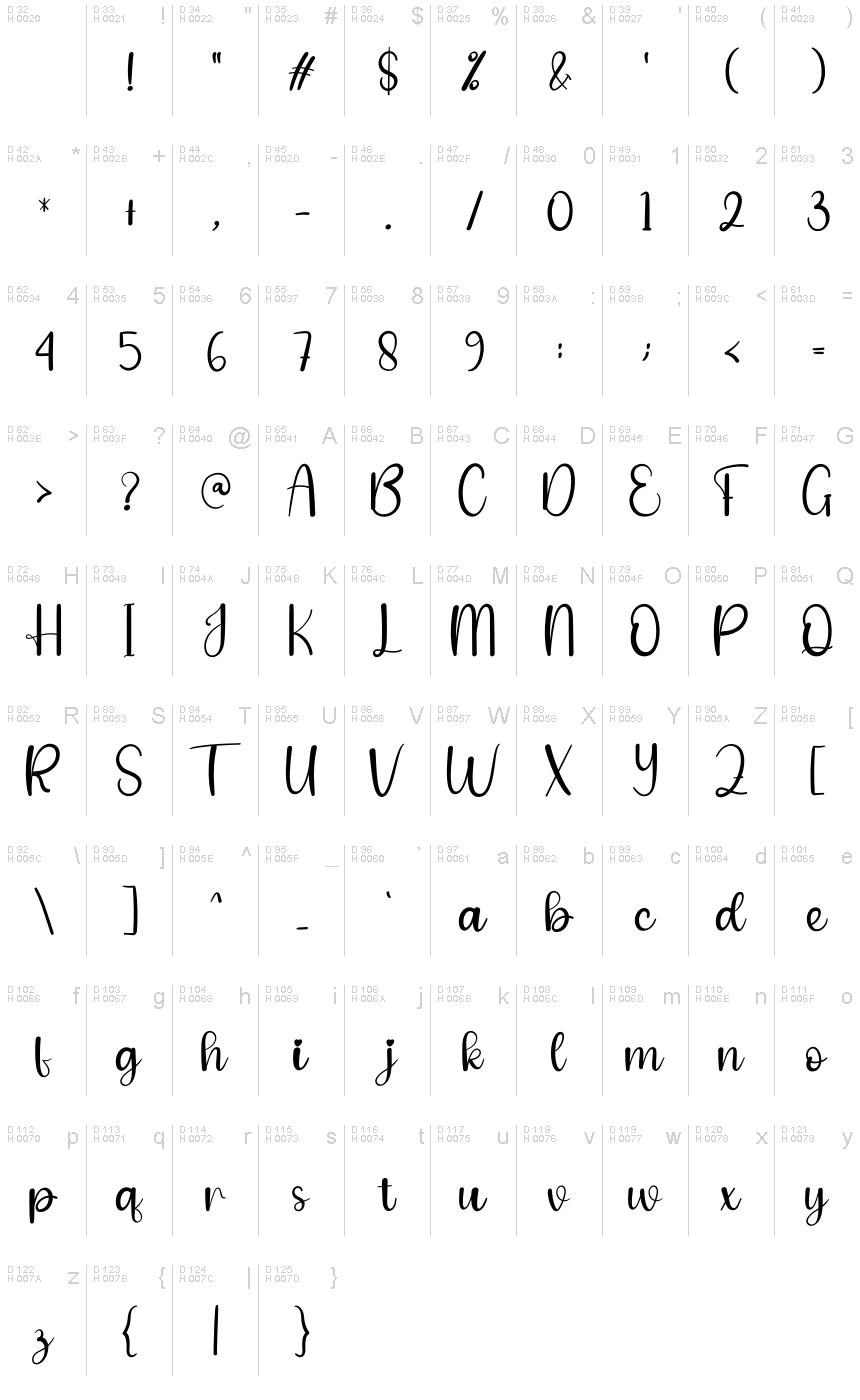
Santa Clause
Santa Clause is a striking, handwritten font designed by Andi Moz. Its playful, fluid strokes and whimsical flair evoke the festive spirit of the holiday season. The distinct, curving letterforms and varied line widths lend a heartwarming, personal touch, perfectly suited for greeting cards, holiday branding, and children's storybooks. This font's versatility extends beyond seasonal applications, making it an excellent choice for adding a touch of warmth and personality to a wide range of design projects.
The font's ability to convey a sense of joy and nostalgia makes it a compelling option for projects that require a touch of enchantment and charm. Its unique character could elevate invitations, event signage, or even packaging designs, imbuing them with a sense of festive charm.